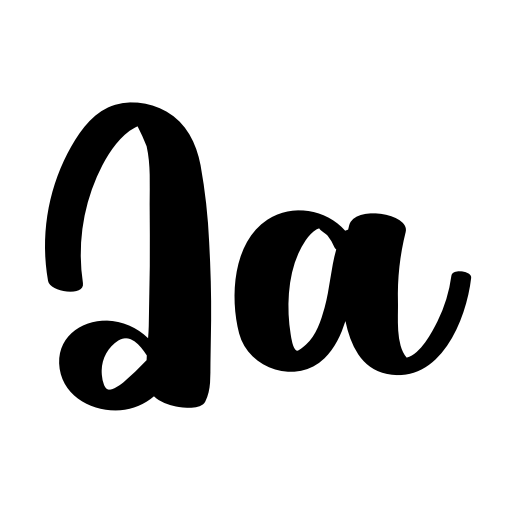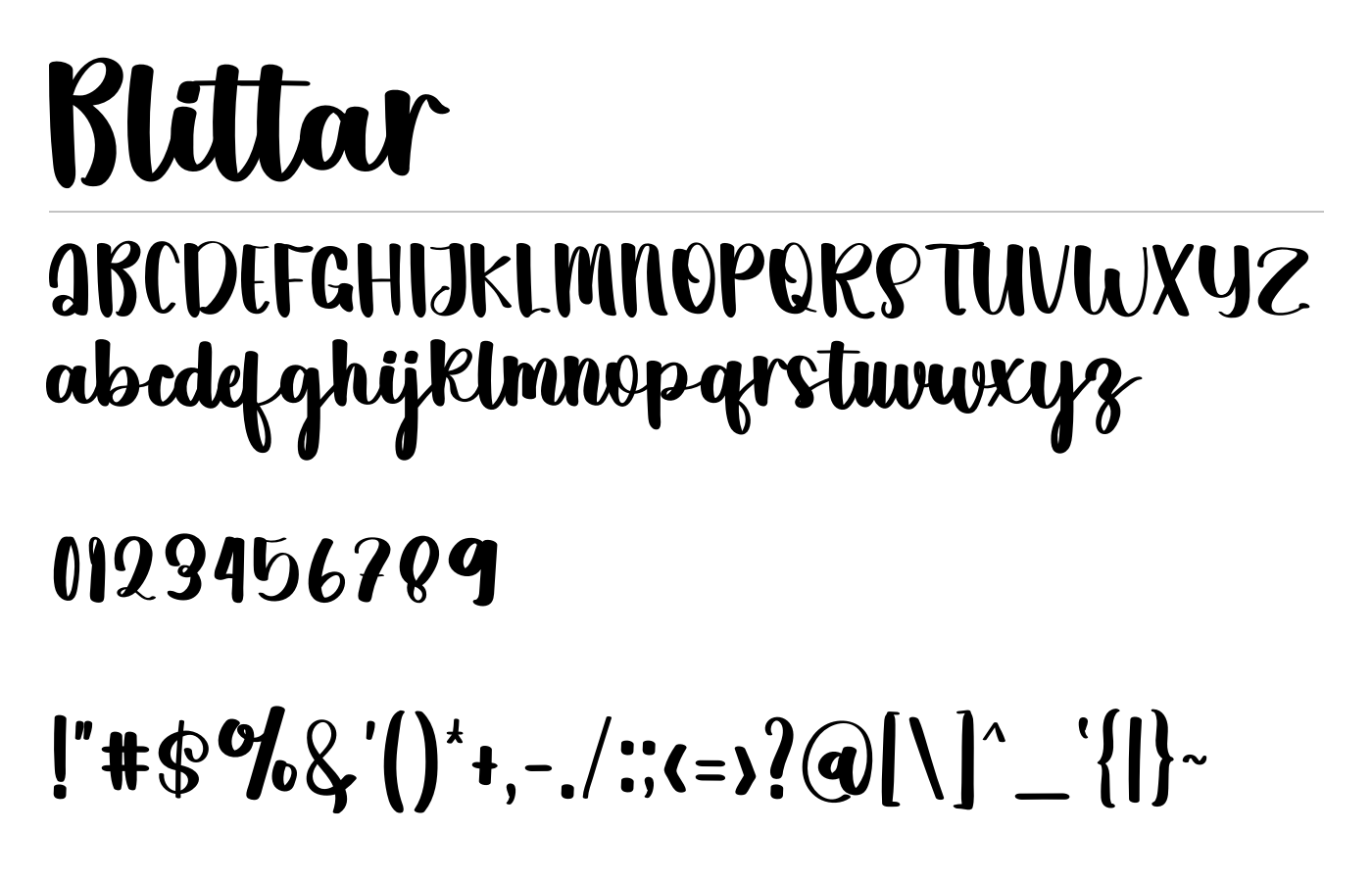
Blittar is a playful and bold script font featuring thick, brush-like strokes with a lively handwritten style. Its tall x-height and smooth, rounded letterforms give it a friendly and approachable feel, making it perfect for creative branding, invitations, and casual headlines. This font adds charm and personality to designs that seek a warm, informal, and artistic touch.
Blittar Font